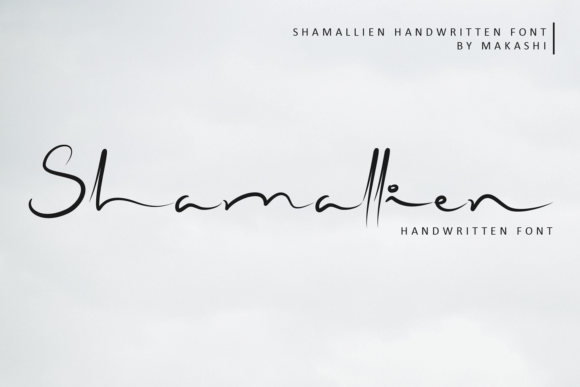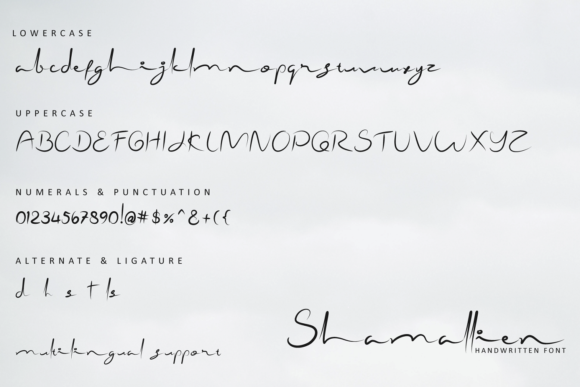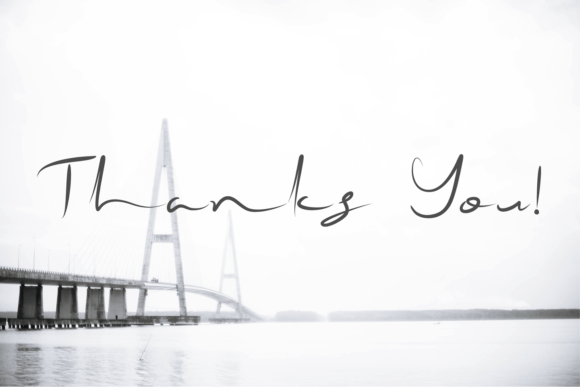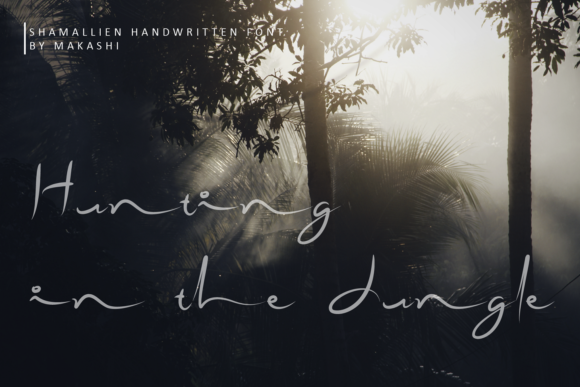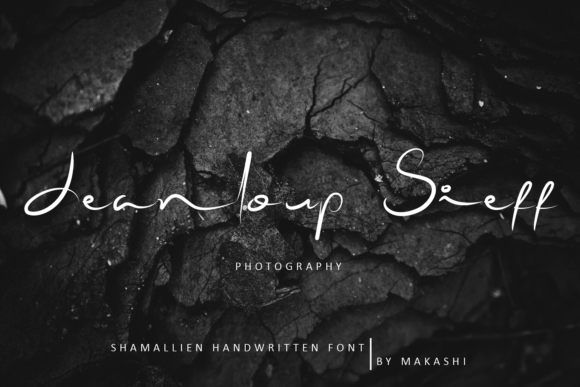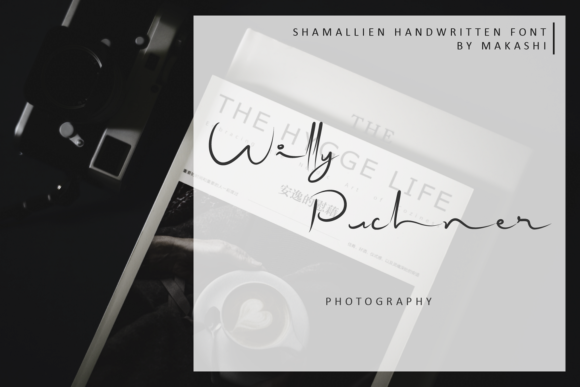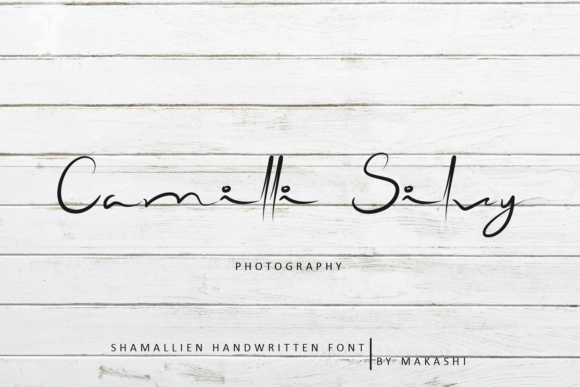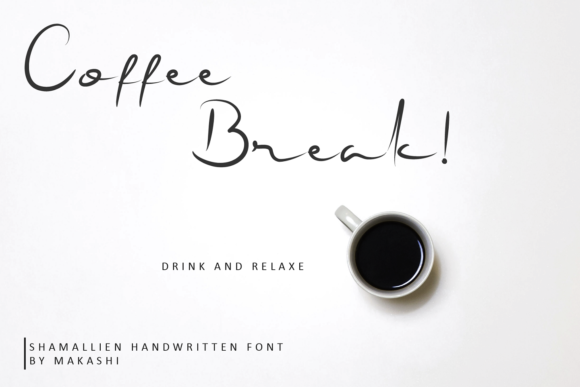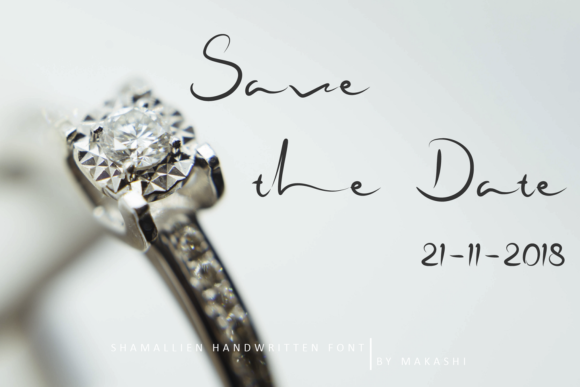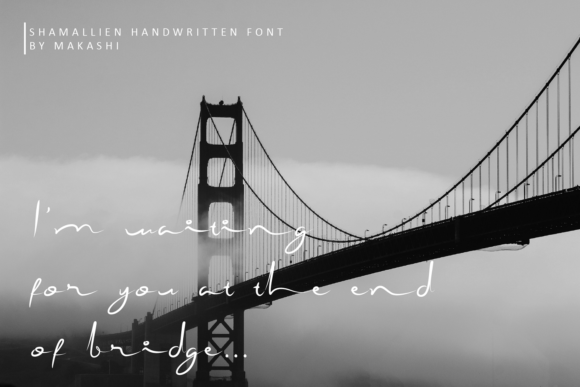
Shamallien Font
About Shamallien Font
The Shamallien is an elegant script font. It has a beautiful handwritten style which makes it perfect for adding a natural feel to your designs.